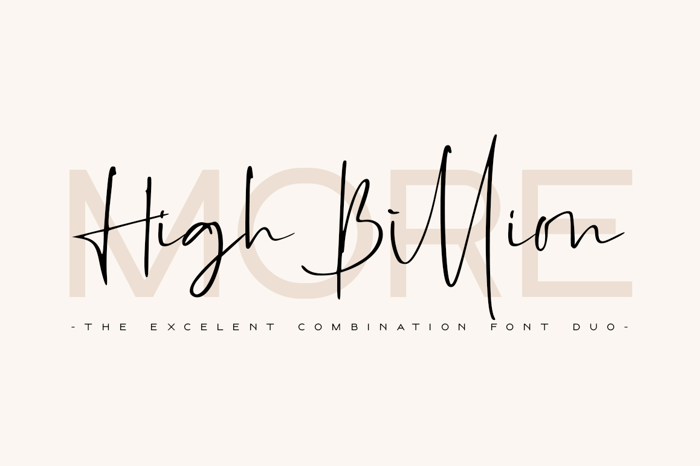
High Billion Font
2 Italic Style
Introduce Excellent combination modern font duo in High Billion the stylish modern and natural fonts combination with casual-chic flair. These are perfect for branding, wedding invites and cards, and more options for your requirement. High Billion includes two font styles with a full set of natural hand draw for script and elegant with all uppercase letters for sans serif. Numerals, a large range of punctuation and ligatures giving realistic hand-lettered style.